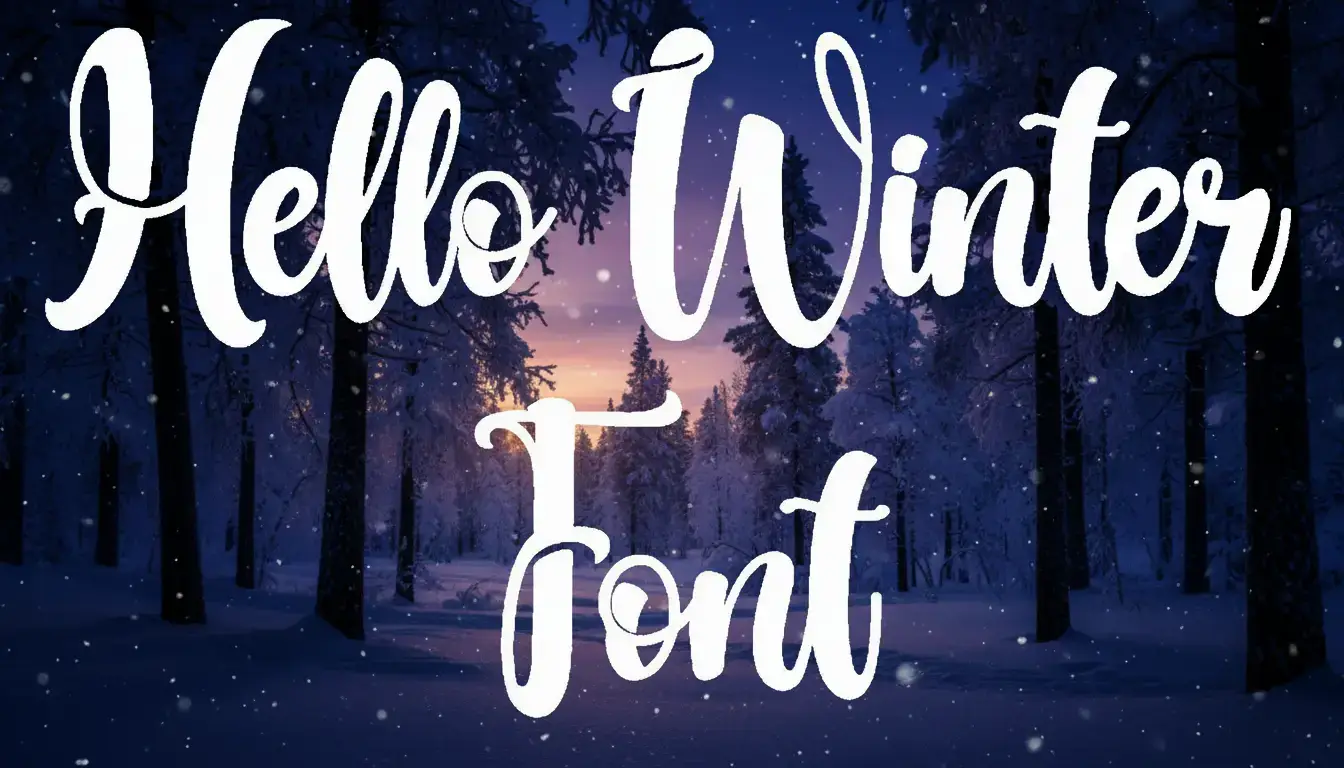
Hello Winter Font
Hello Winter is a script font designed by Aveni Yuanita. Its flowing, pen-made letters give names and short phrases a personal, polished look. You can download it for free and test it with your own words in the preview above.
- Designer: Aveni Yuanita
What You Can Type With Hello Winter
You get every letter from A to Z in both cases and all the numbers from 0 to 9, which means Hello Winter can handle full sentences, dates and prices. Everyday marks like &, !, ? and @ are there too. Thanks to its accented letters, it also works for Spanish, French, Portuguese and Italian, not just English.
Where Hello Winter Works Best
Designers usually reach for fonts like Hello Winter when they're making wedding invitations, logos and signature-style headings. Script fonts read best in short bursts, so keep it to names, titles and one-line quotes. Skip all caps: script capitals are drawn to start a word, not to fill one.
Does Hello Winter support accented letters?
Yes. Hello Winter includes the accented letters needed for Spanish, French, Portuguese and Italian, so it works for more than just English.